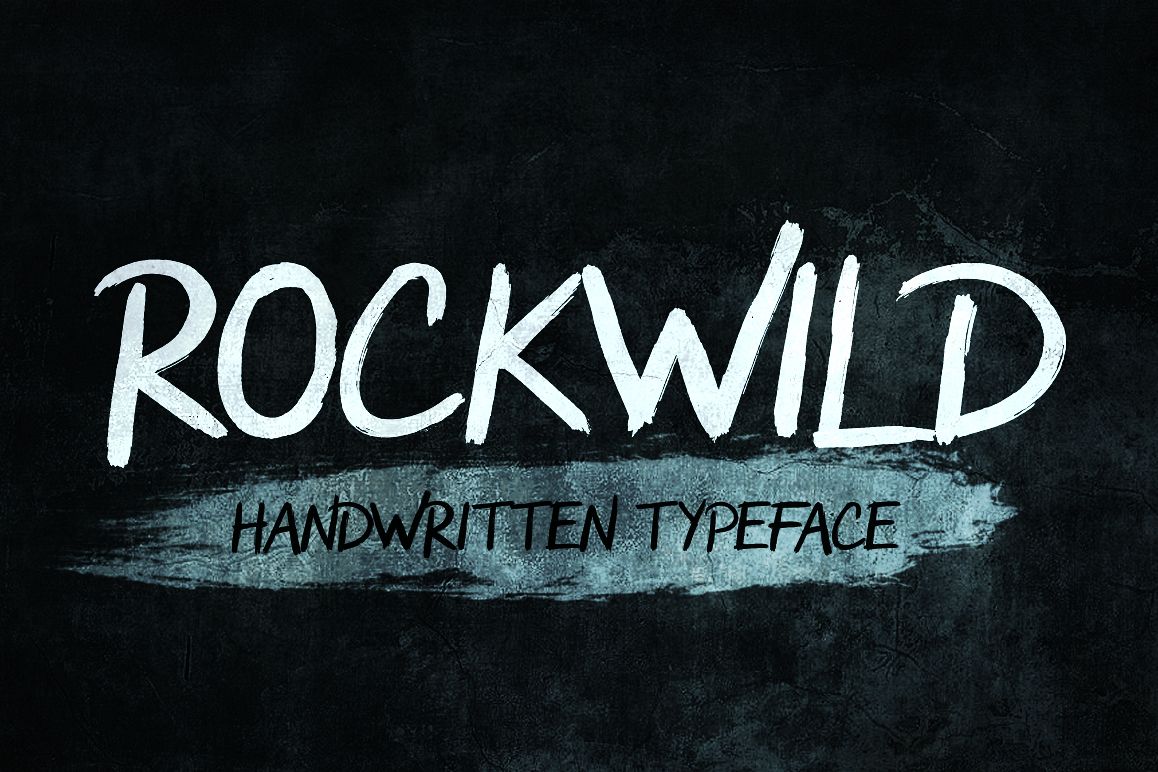
Rockwild
Rockwild is a hand-drawn brush font with rough and bold letters. It's great for logos, branding, print projects and any attention drawing headline.